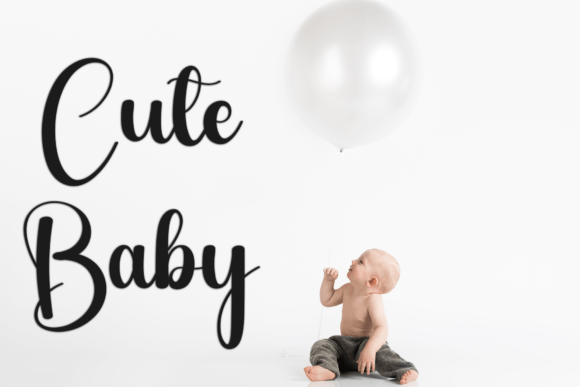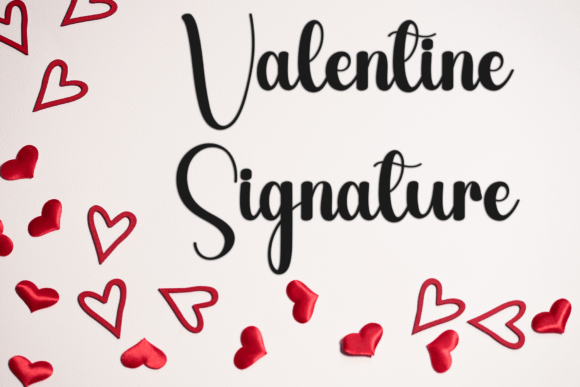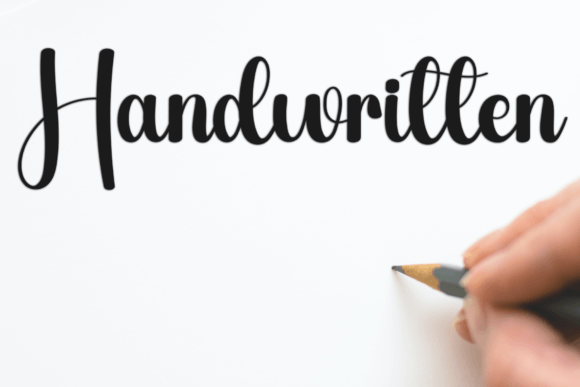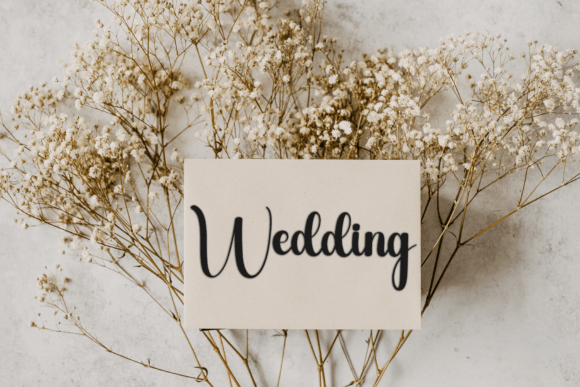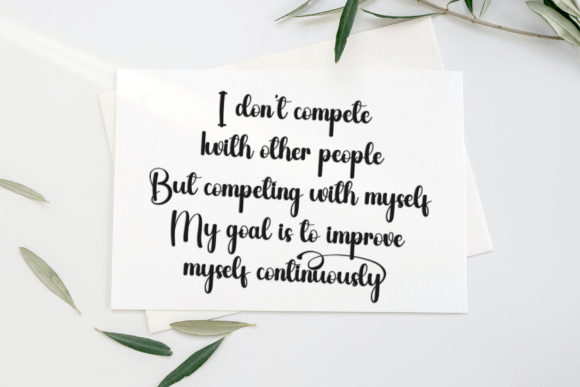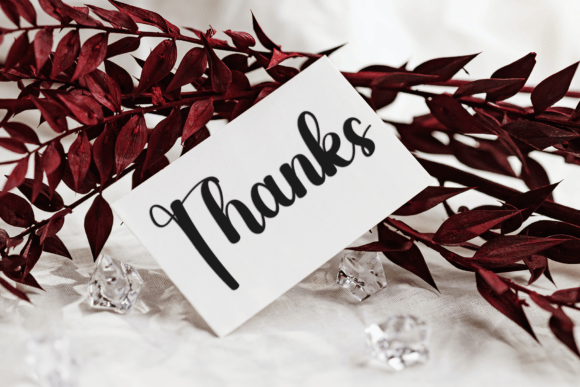
The Art of Elegant Expression: Unlocking the Power of Calligraphy Font
Do you remember that moment when you stumbled upon a beautifully crafted sign in a quaint coffee shop, and it instantly captured your heart? The flowing curves, the confident strokes, and the sense of personality that radiated from each letter – that’s the magic of Calligraphy Font. As a designer, you’re likely no stranger to the power of typography to elevate a design. But with the Calligraphy Font, you can add an extra layer of sophistication and elegance to your projects.
This stylish handwritten font is a masterclass in modernity and artistic flair. By incorporating the Calligraphy Font into your designs, you can add a touch of expressiveness and personality that resonates with your audience. Whether you’re working on a branding project, a wedding invitation, or a social media campaign, the Calligraphy Font is an invaluable asset in your design toolkit.
Key Features of Calligraphy Font
- Unique Characteristics: Distinctive handwritten or brush-style strokes, giving it a personal and artistic touch.
- Font Style: Available in various styles, including script, cursive, and formal calligraphy, catering to different design requirements.
Designer Review: Calligraphy Font
I recently worked with the Calligraphy Font, and here’s my honest take on it.
- Beautifully crafted lettering: The font features elegant, cursive strokes that are perfect for adding a touch of sophistication to any design.
- Highly customizable: The font comes with a range of options for adjusting size, spacing, and color, making it easy to tailor it to your specific needs.
- Wide compatibility: I had no issues using the font across various platforms, including web, print, and digital applications.
- May not be suitable for small text: The font’s delicate nature can make it difficult to read when used in small sizes or at low resolutions.
- Limited font weights: While the font is highly customizable, it only comes in a few pre-defined weights, which may not be sufficient for complex designs.
- Not ideal for bold or display use: The font’s cursive style can get lost when used in bold or display contexts, making it less effective for headings or titles.
Overall, the Calligraphy Font is a beautiful and versatile addition to any design arsenal. While it may have some limitations, its elegant and customizable nature makes it a great choice for projects where a touch of sophistication is required.
Calligraphy fonts are commonly used for:
Special occasion greeting cards
Wedding and event signage
Any design that requires a touch of elegance and sophistication
Can I use a calligraphy font for digital displays, or is it best suited for print?
While calligraphy fonts can be used for digital displays, they may not always render as intended on screens. This is because digital displays can struggle to accurately render the complex strokes and connections that are characteristic of calligraphy. However, some modern font rendering engines and software can handle calligraphy fonts well, and many